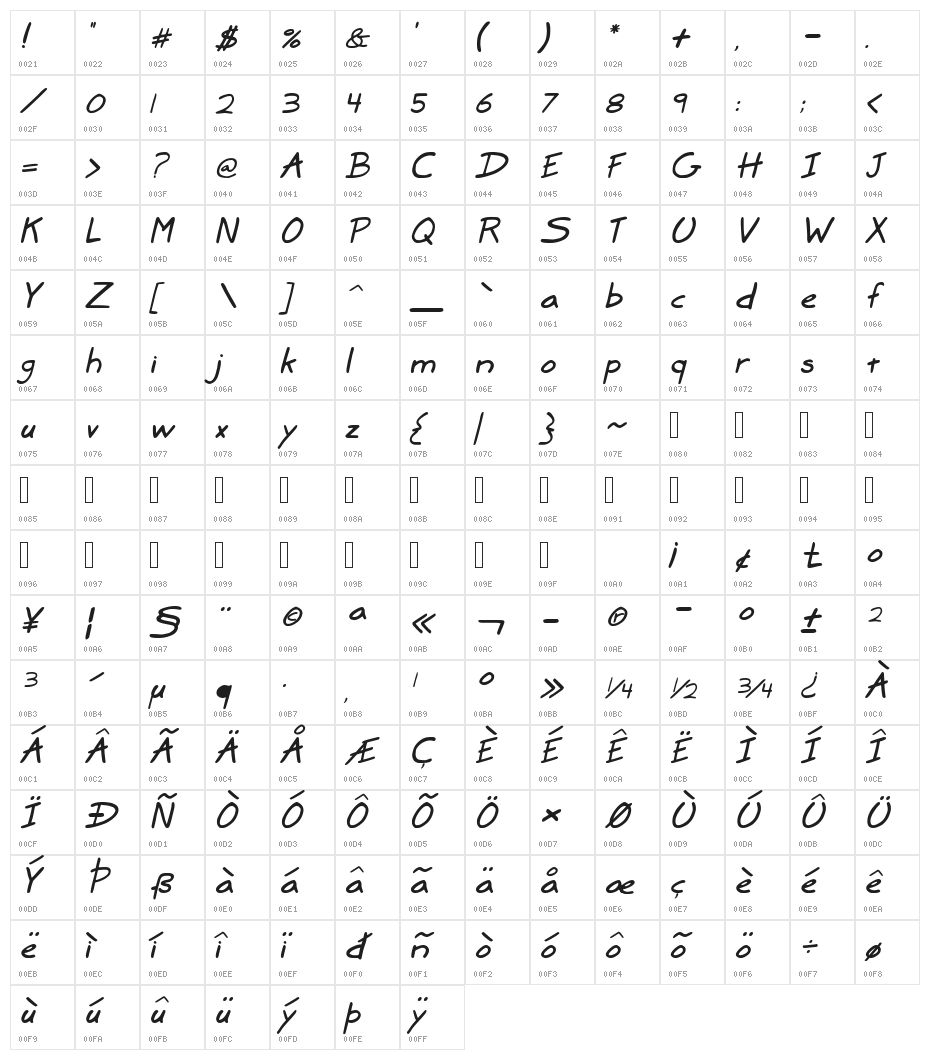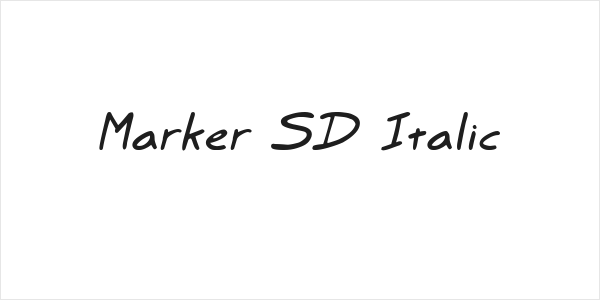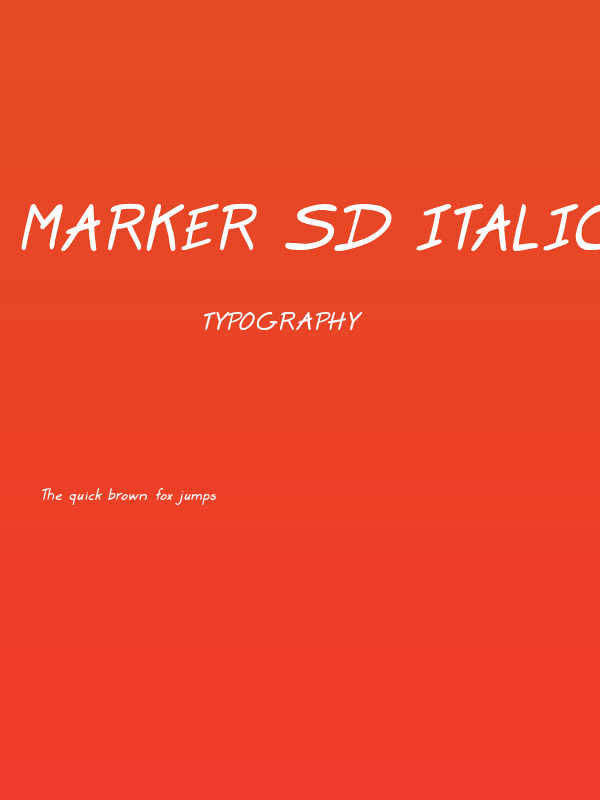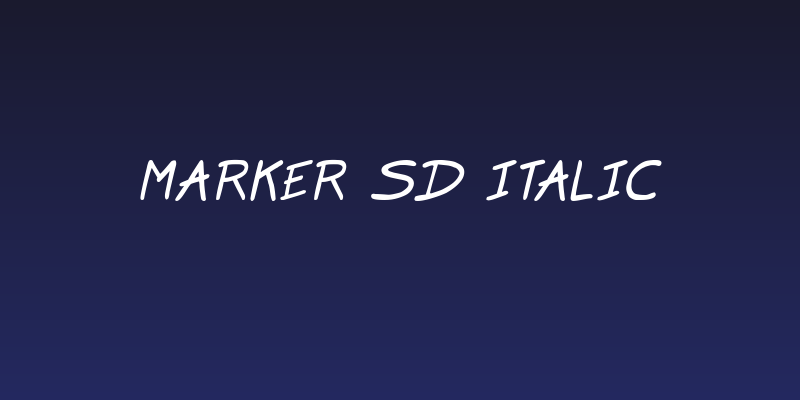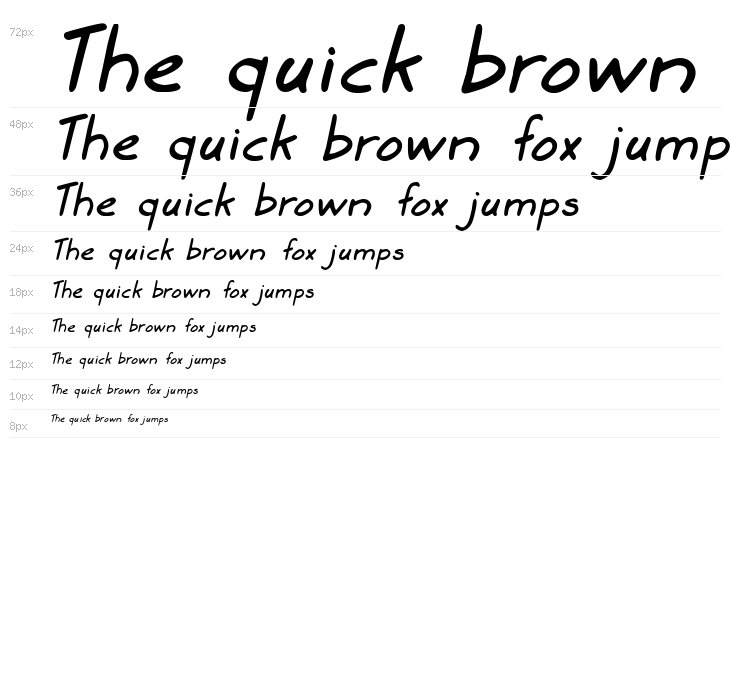
Marker SD Italic Font
Marker SD Italic Description
This font features a casual, handwritten style with a slight slant, giving it an informal and approachable appearance. The characters are well-rounded and smooth, with consistent stroke widths that maintain readability. The uppercase letters are bold and prominent, while the lowercase letters maintain a friendly and inviting look. Numbers and special characters are clearly defined, making them suitable for various contexts. The overall design is playful yet professional, making it versatile for both personal and business use.
Overall StyleCasual
Use CaseHeadlines, Informal text, Personal branding
Proposed ProjectsIdeal for greeting cards, invitations, personal branding, and informal communication materials.